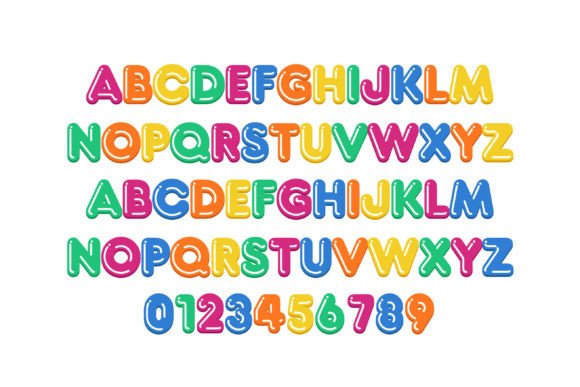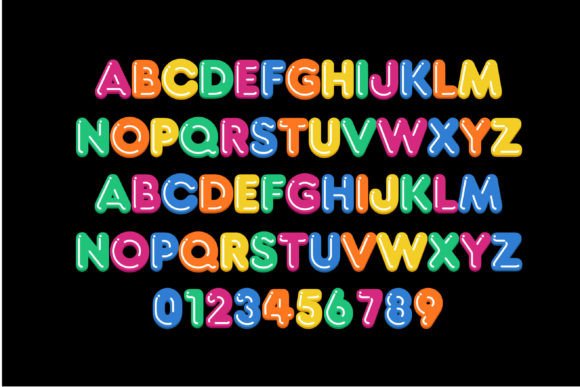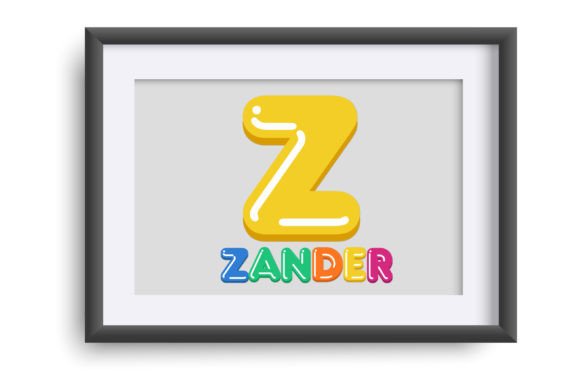
Introduction to Bubbly Gumbo Font
Bubbly Gumbo is a quirky, colorful, and bubbly font that will add personality to your design.
Its bubbly shapes, bright colors, and playful characters will bring a sense of fun and joy to any project Perfect for posters, invitations, and more.
Key Features of Bubbly Gumbo Font
Why Choose Bubbly Gumbo Font?
Bubbly Gumbo Font offers exceptional quality and versatility, making it a valuable addition to your design toolkit. Whether you’re creating for personal projects or commercial use, Bubbly Gumbo Font delivers professional results.